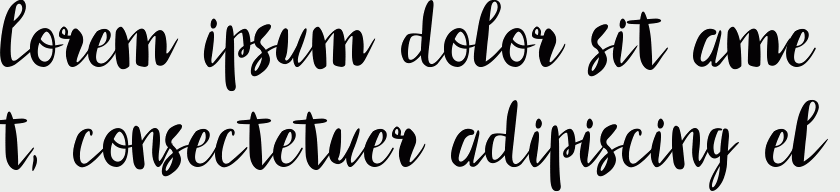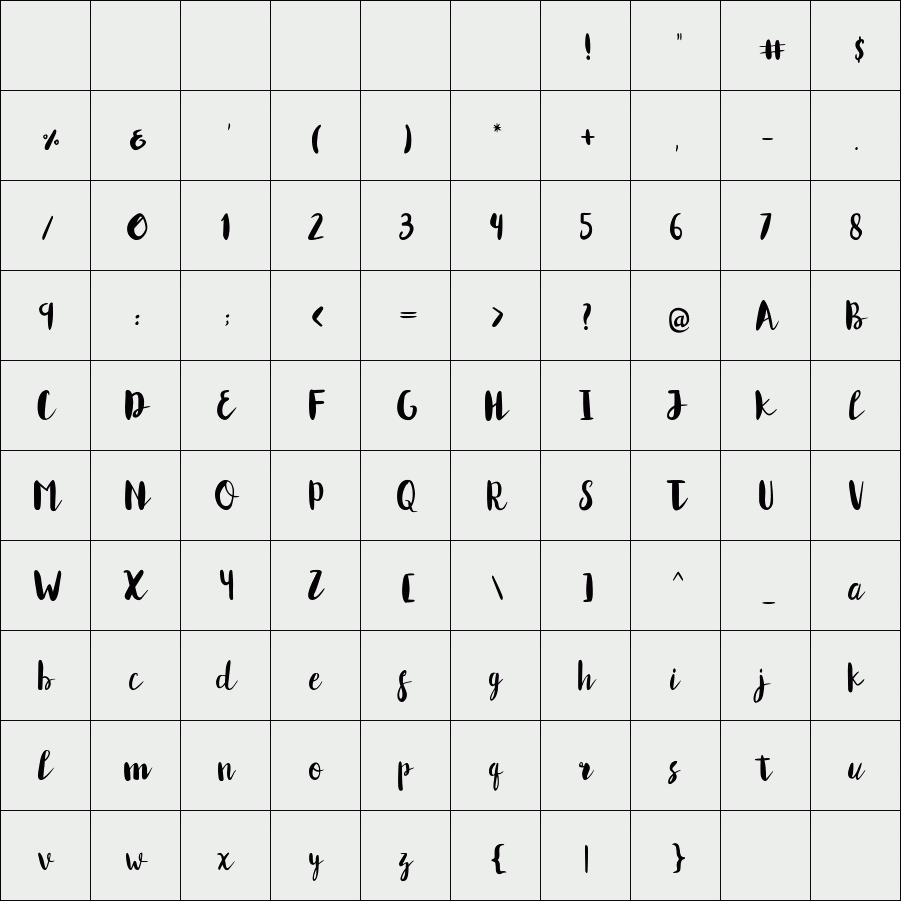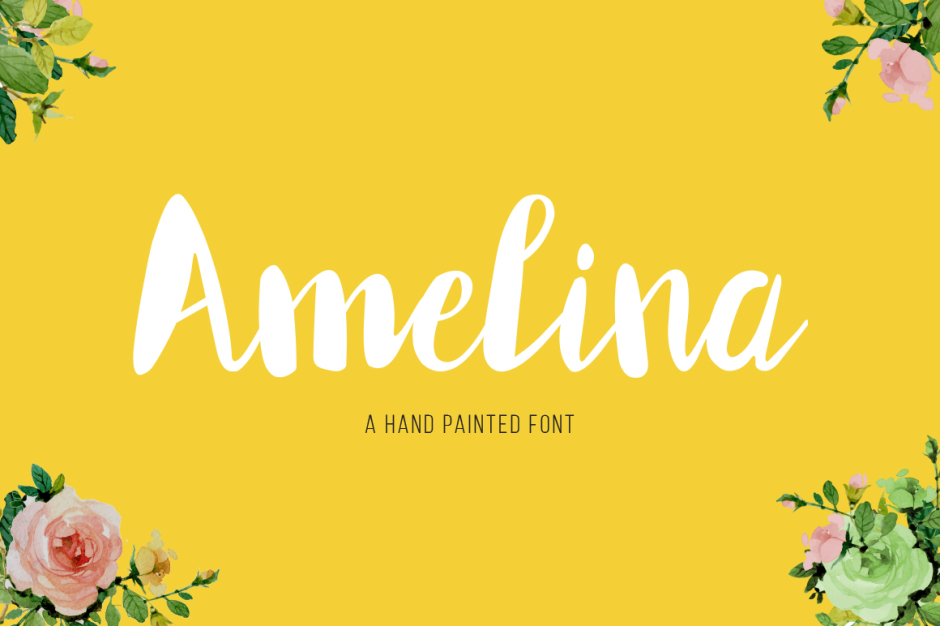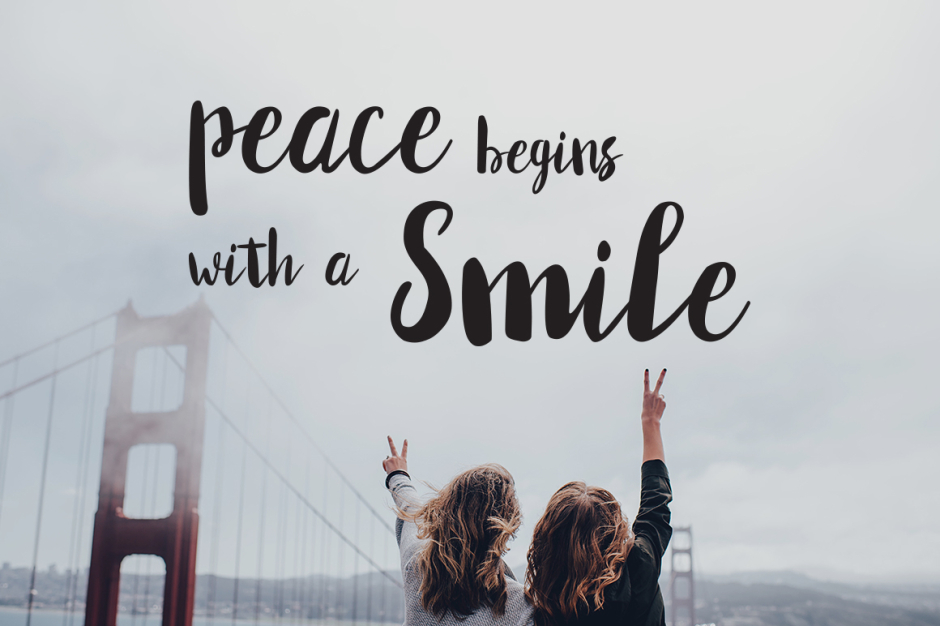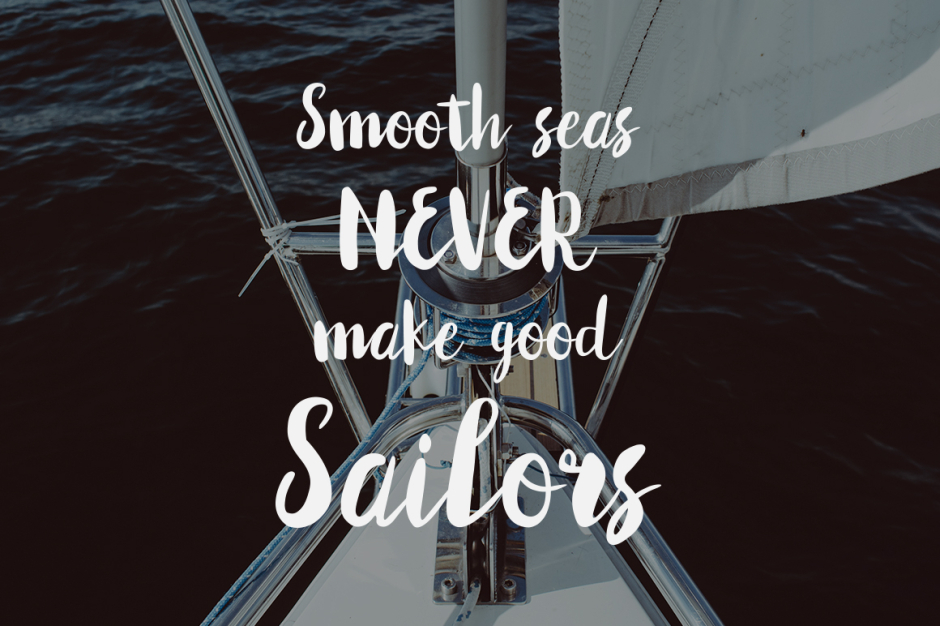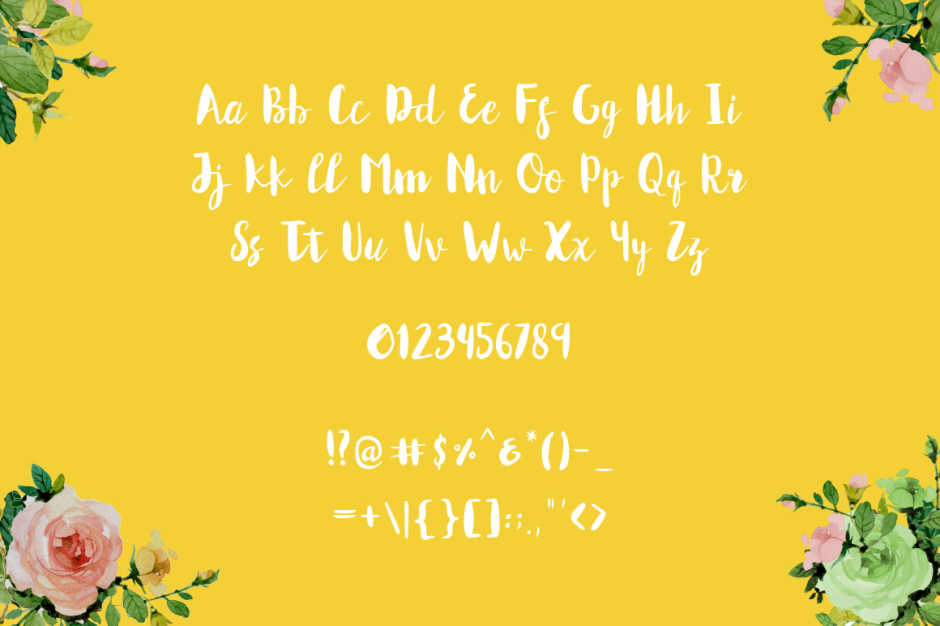
Amelina
Amelina is a smooth and modern hand painted font. Can used for headline, logo, wedding invitation, labels, newsletters, posters, badges, t-shirt and more.